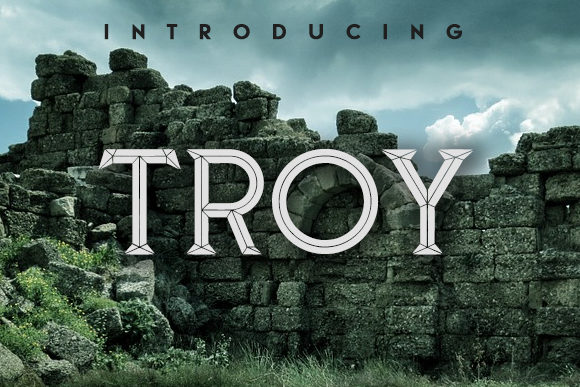
Behold Troy Font, the crown jewel of display fonts. A masterpiece carefully crafted by Vladimirnikolic, Troy Font is not just a collection of letters; it's an artistic expression waiting to adorn your designs with a touch of grandeur and distinction.
Immerse yourself in the world of Troy Font, where ordinary text transforms into captivating narratives. Whether you're a seasoned designer or an aspiring artist, Troy Font's versatility will ignite your creativity and elevate your designs to new heights.
With its striking characters and timeless elegance, Troy Font possesses an innate ability to capture attention and leave a lasting impression. Its carefully crafted curves and sharp angles dance harmoniously, creating a visual symphony that will make your words sing.
Let Troy Font be your guide as you embark on a journey through the realm of typography. Its bold presence commands attention, while its delicate details evoke a sense of sophistication and refinement. With every stroke of this magnificent font, you'll discover new depths of expression and creativity.
Unlock the boundless potential of Troy Font and witness the transformation of your designs. Its versatility knows no bounds, seamlessly adapting to a myriad of projects. From captivating logos and eye-catching headlines to elegant invitations and heartfelt letters, Troy Font will elevate your creations and make them shine.